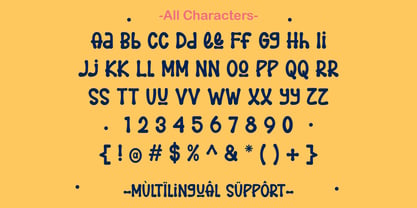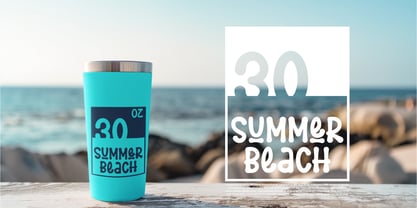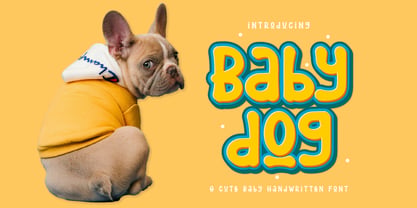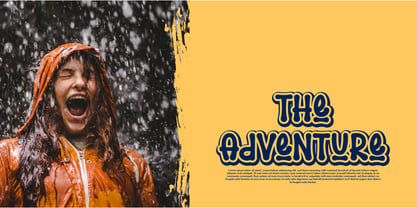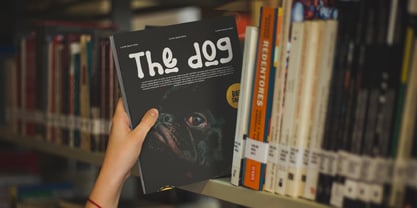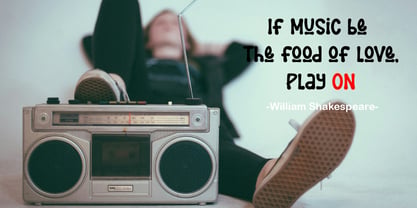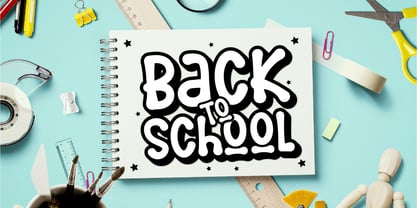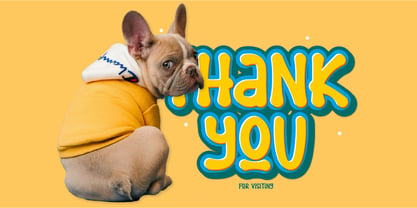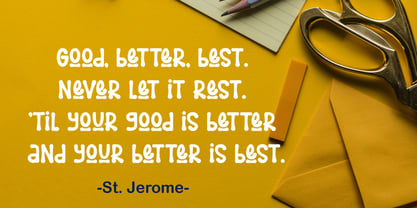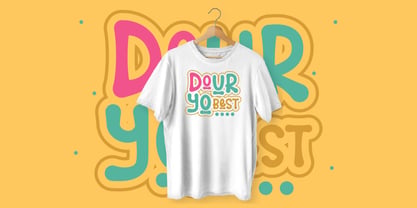
Baby Dog
by Patlot Digital Studio
The Baby Dog Font Family was designed by Gugun Gunawan and published by Patlot Digital Studio. Baby Dog contains 1 styles. More about this family
Baby Dog is the quintessentially delightful handwritten font that exudes an inspiring warmth and unique flair. Imbued with playful strokes and irresistible charm, this font becomes the perfect fit for a myriad of creative ventures. Picture vibrant birthday invitations coming to life with Baby Dog’s sprightly characters or allow it to transform a youthful book cover into an enchanting adventure for baby bibliophiles. Even a simple quote can become a captivating statement piece on your favorite merchandise, or draw anyone closer with an uplifting “Back to School” message, radiating positive vibes. The allure of Baby Dog font is magnified by its fascinating appeal that transcends languages – thanks to its multilingual support. Embark on a creatively enticing journey with Baby Dog today, its charm simply waiting to be uncovered.